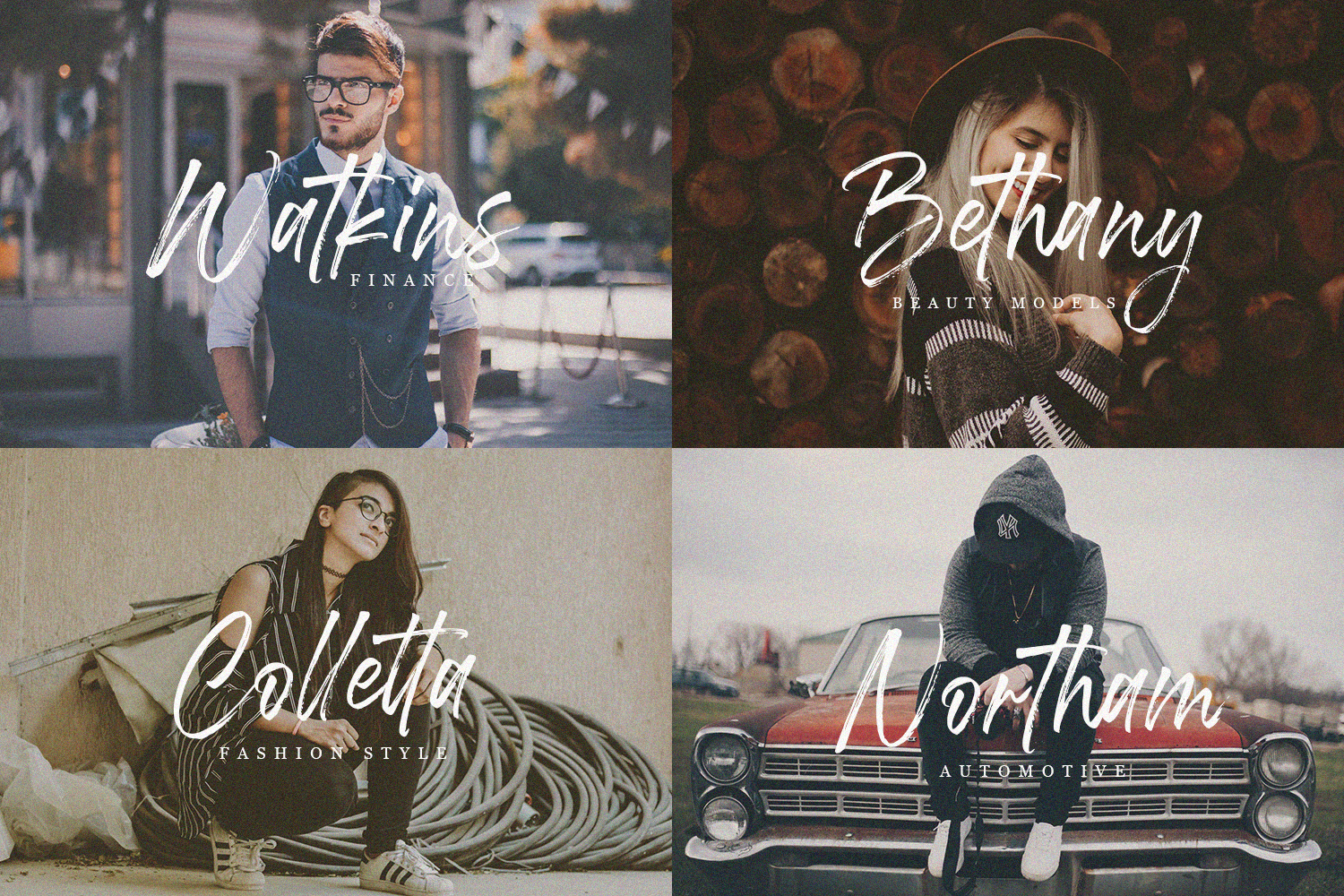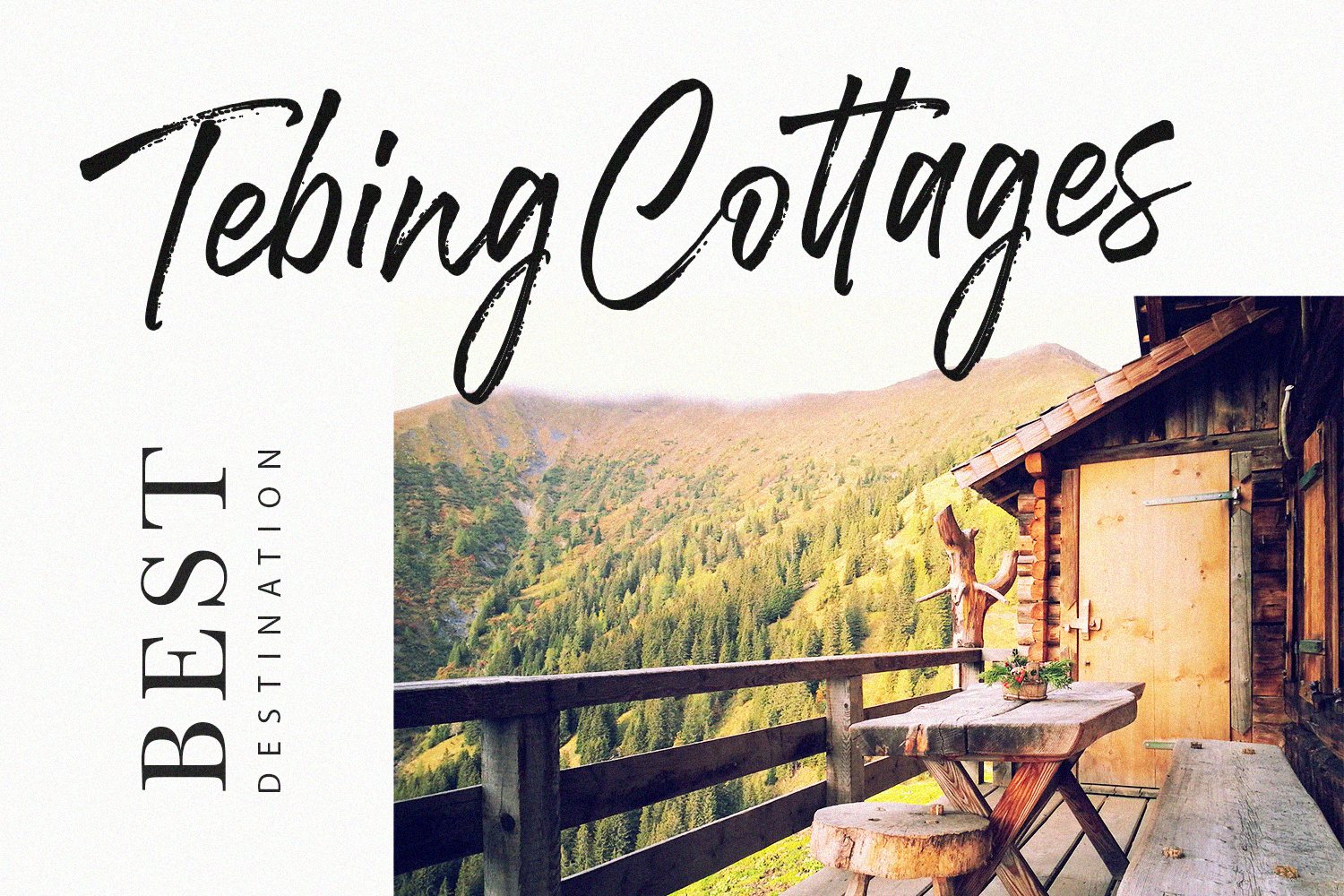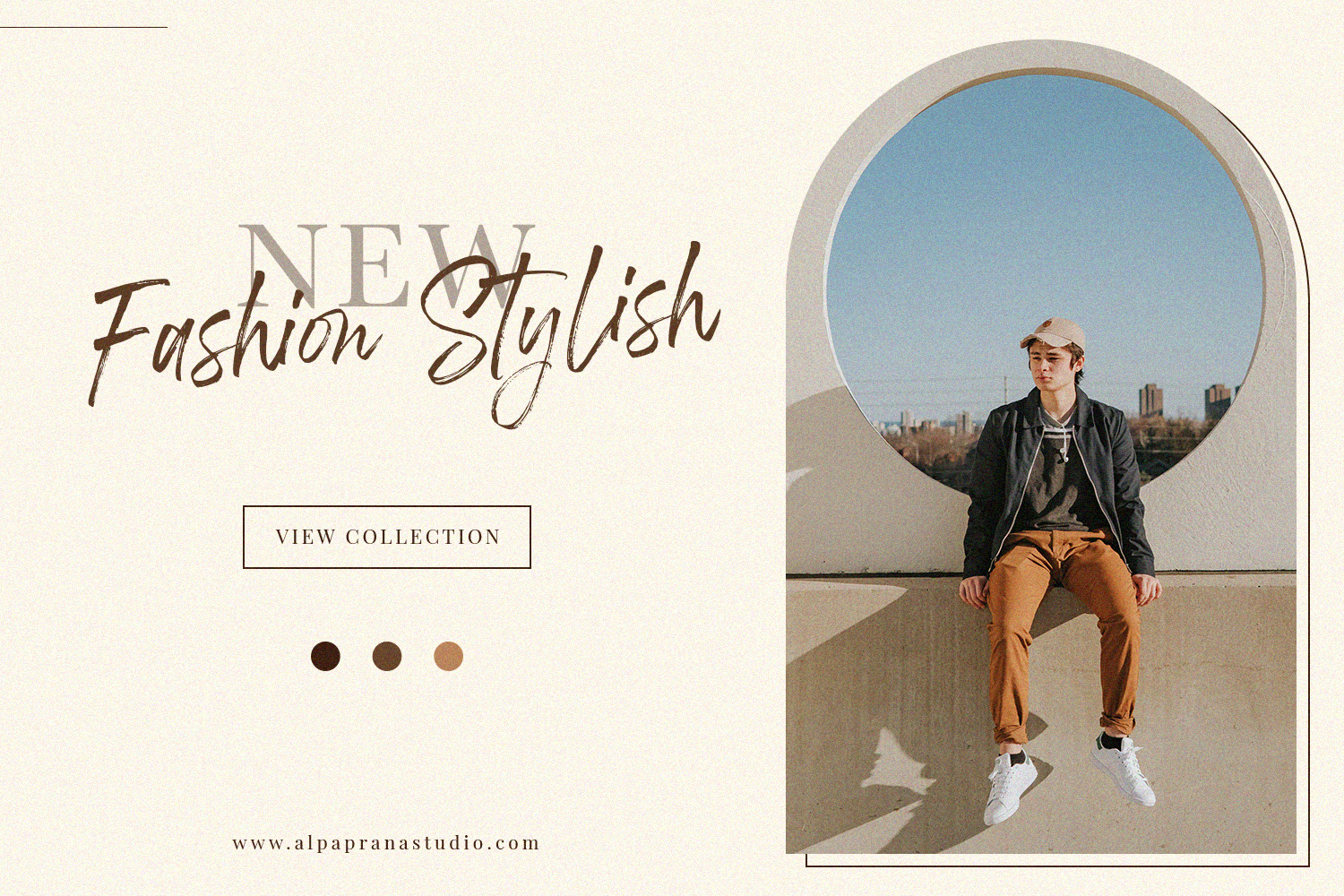
Long Path Brush Font
This is a stunning brush script font with authentic and natural feels. It will be perfectly used for Branding, Logo Design, Lettering, Logotype, Clothing, Poster, magazine, packaging, posters, shopping bags, t-shirts, book covers, photography, special events and other design project.